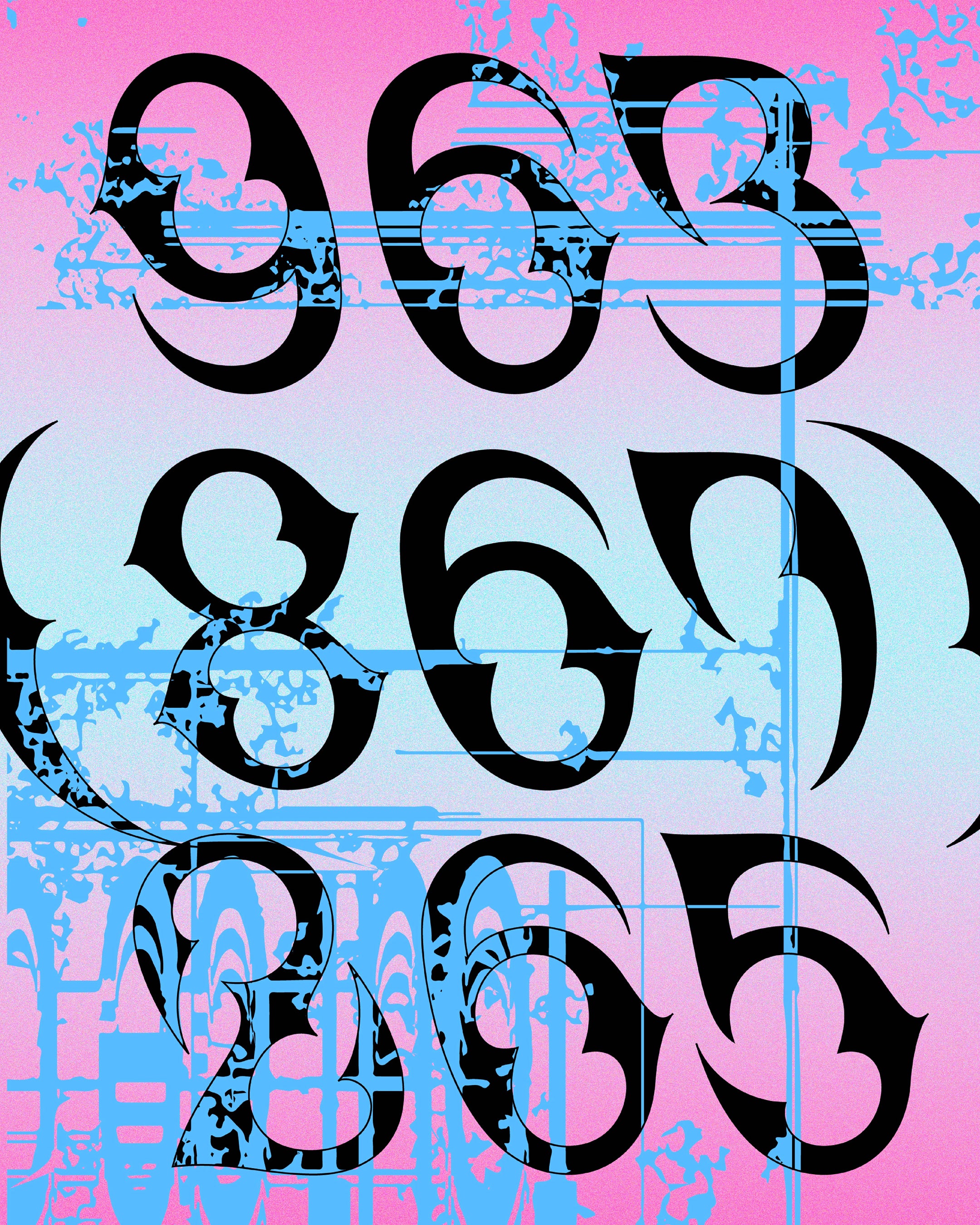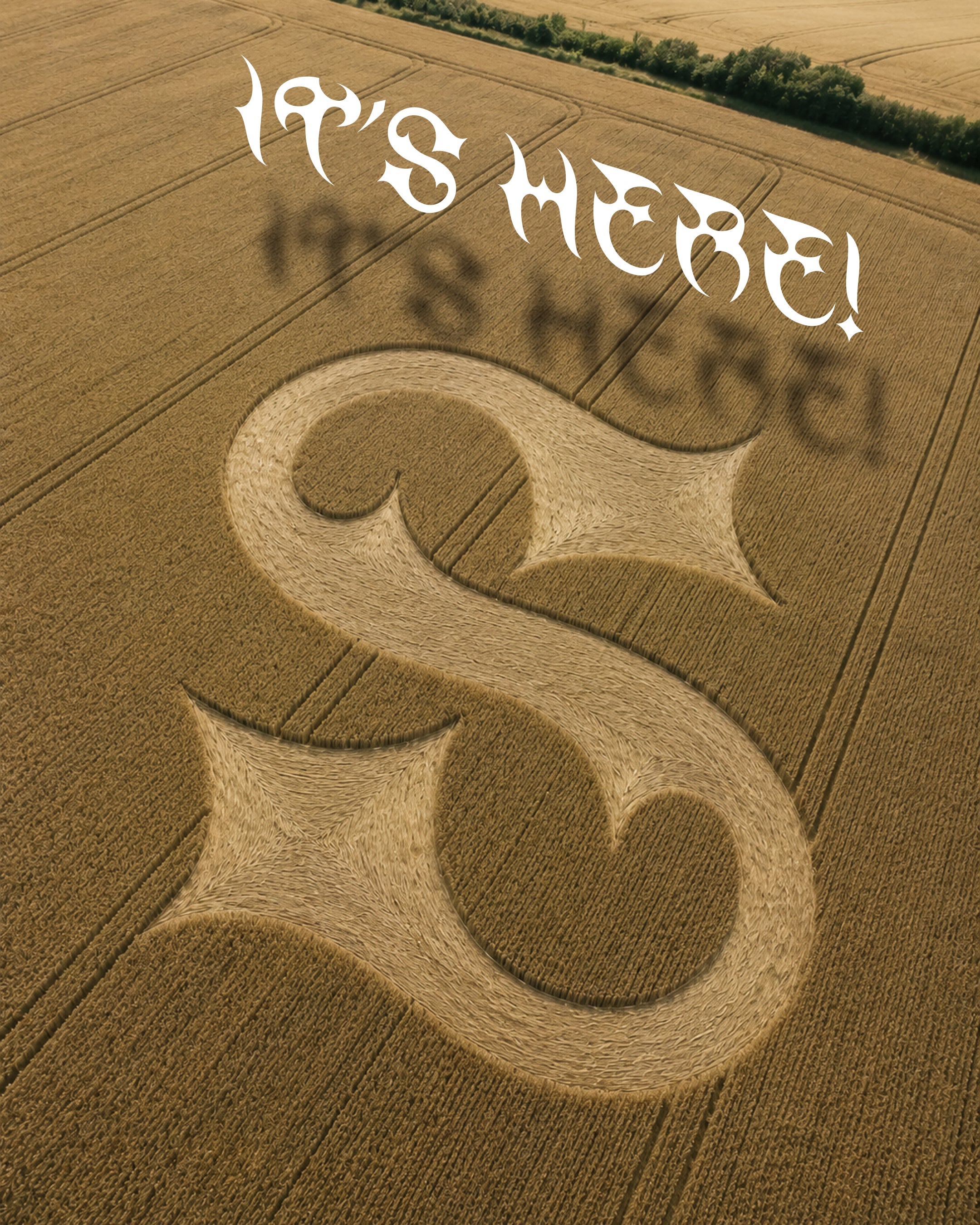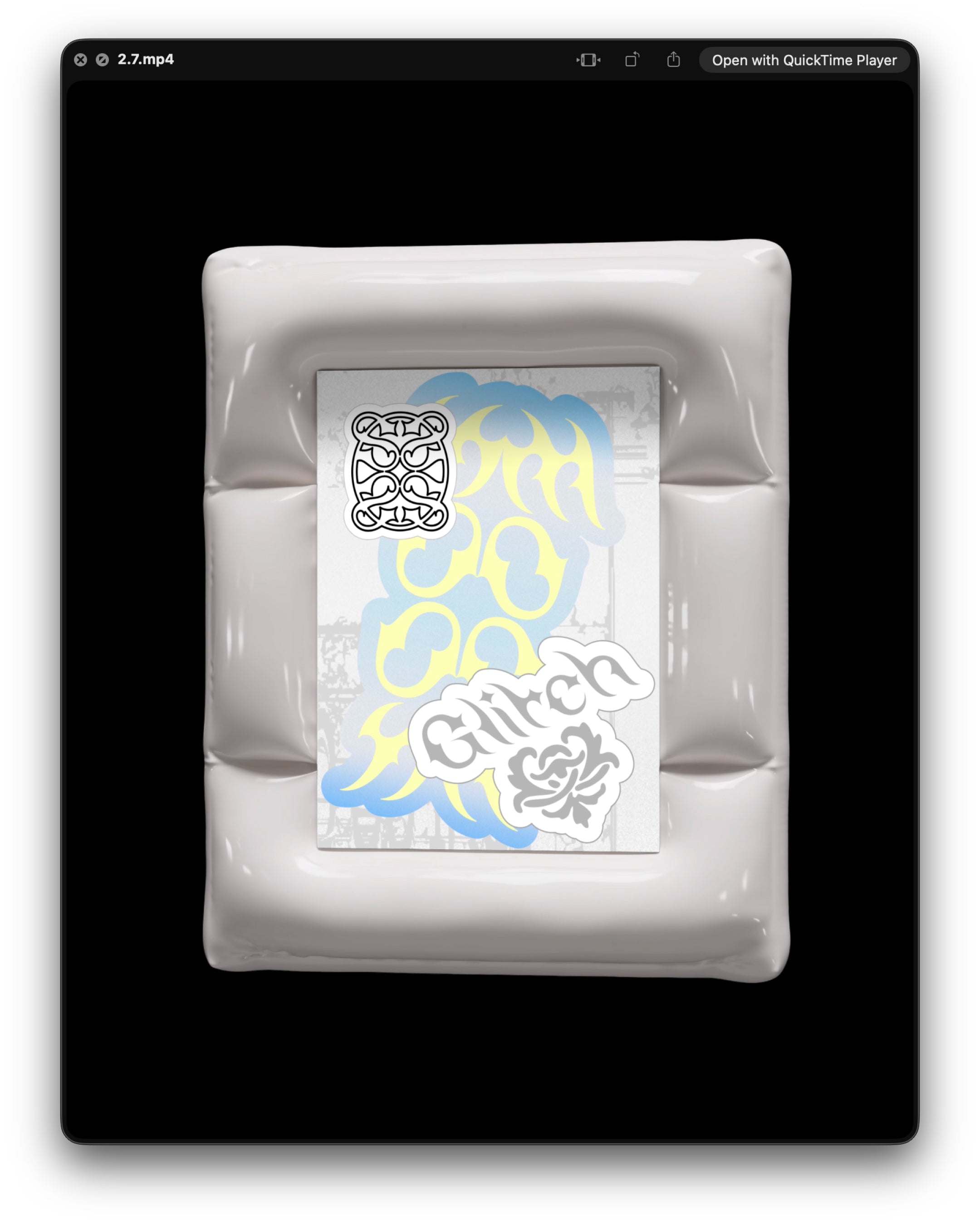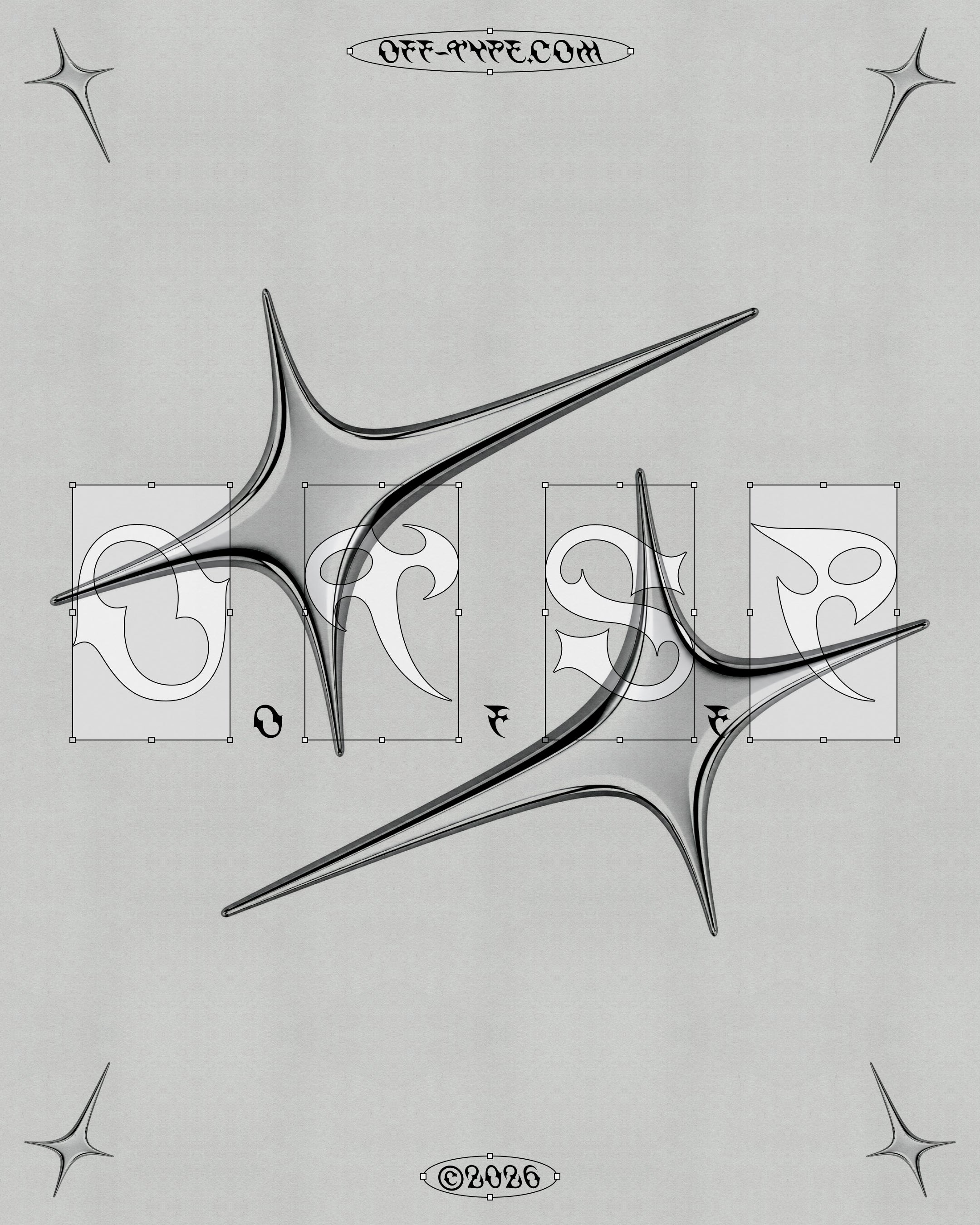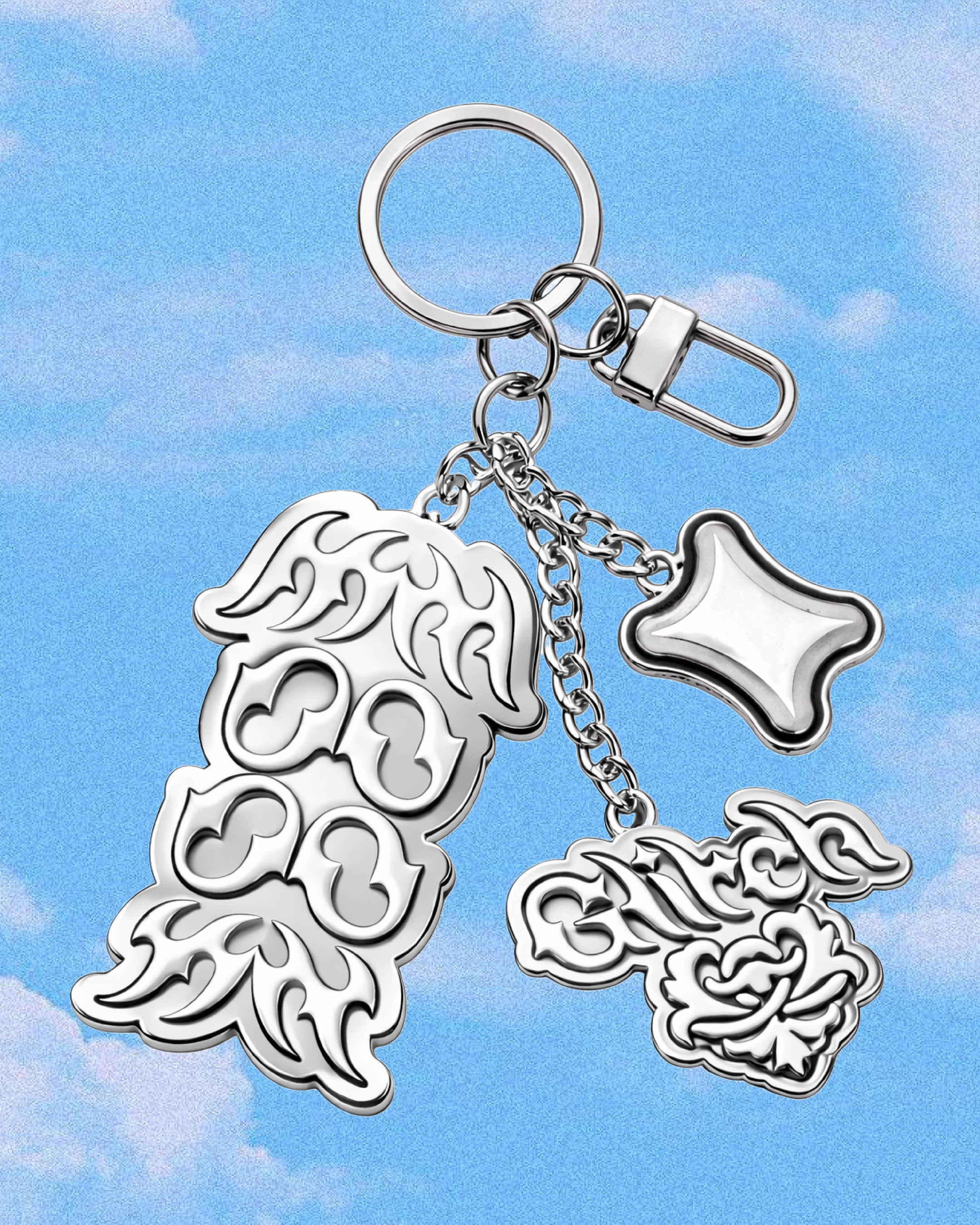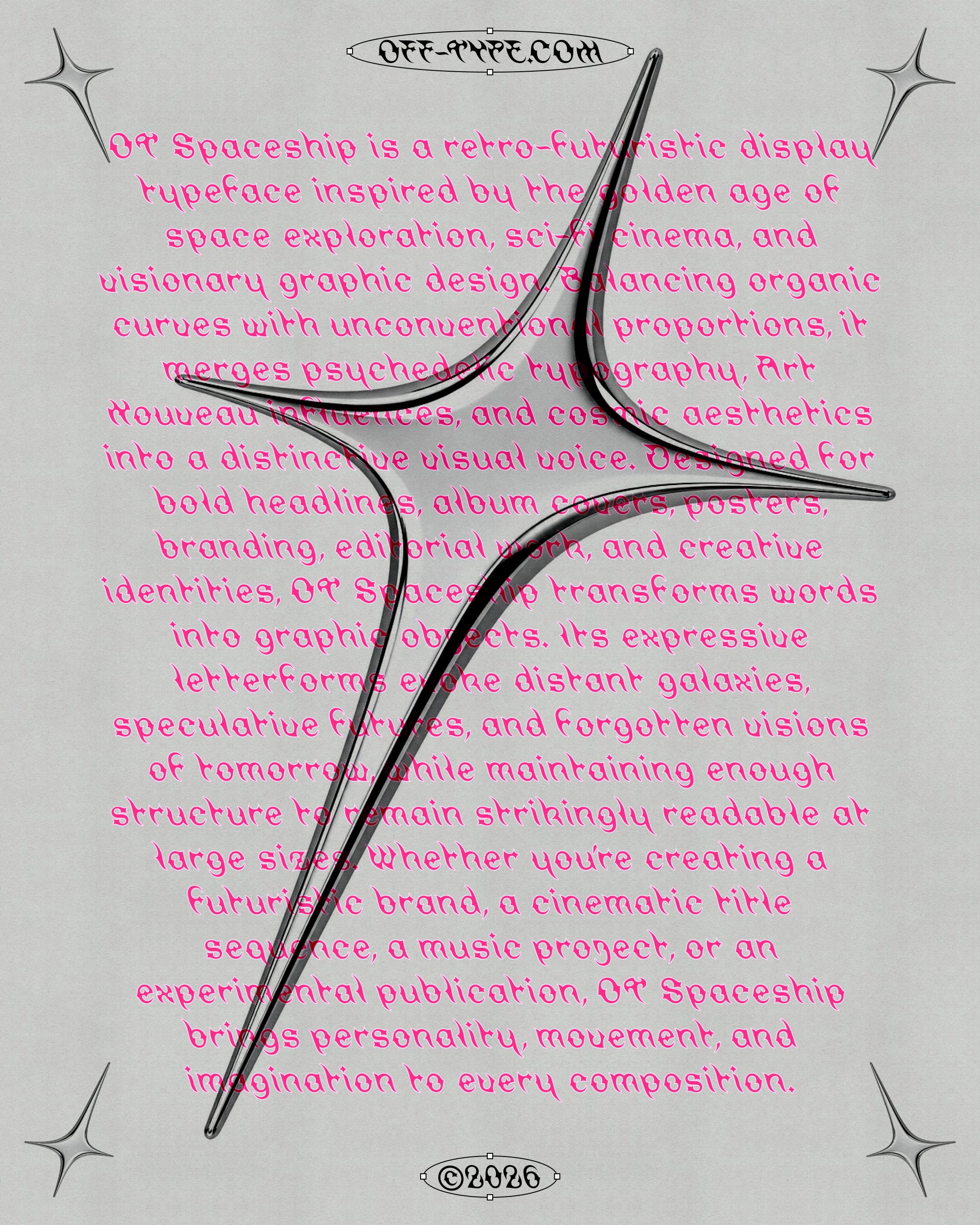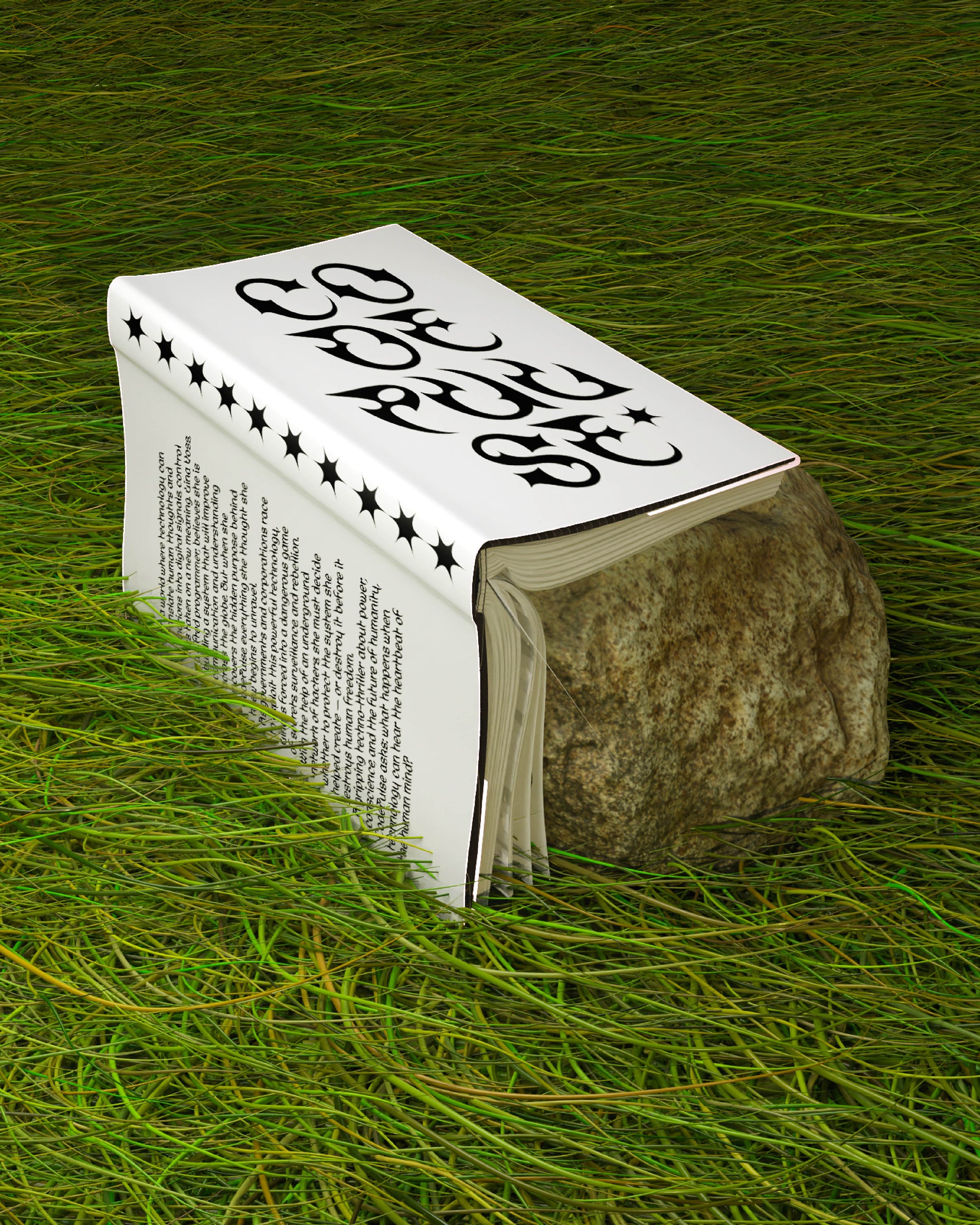
Extraterrestrial forms, organic rhythms, and spikes, lots of spikes!
Spaceship
Off-Worldy
Crazy xenobiologists mapped quirky fungal growths beyond Jupiter's void.
OT Spaceship is a retro-futuristic display typeface inspired by the golden age of space exploration, sci-fi cinema, and visionary graphic design. Balancing organic curves with unconventional proportions, it merges psychedelic typography, Art Nouveau influences, and cosmic aesthetics into a distinctive visual voice.
Designed for bold headlines, album covers, posters, branding, editorial work, and creative identities, OT Spaceship transforms words into graphic objects. Its expressive letterforms evoke distant galaxies, speculative futures, and forgotten visions of tomorrow, while maintaining enough structure to remain strikingly readable at large sizes.
Whether you're creating a futuristic brand, a cinematic title sequence, a music project, or an experimental publication, OT Spaceship brings personality, movement, and imagination to every composition.